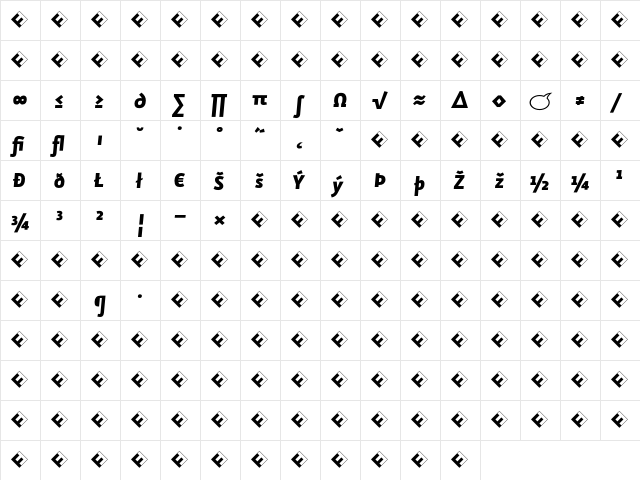
Eureka Sans Black Italic Exp
Design Context for Eureka Sans Typeface
Eureka Sans offers clean, dependable letterforms without strong stylistic allegiance, making it a practical choice for designers who need flexibility. The dynamic lean of this cut emphasises speed and emphasis in any layout.
Pro Tip: Use Eureka Sans for emphasis, pull quotes, and subheadings where its slanted energy can add rhythm to the layout.